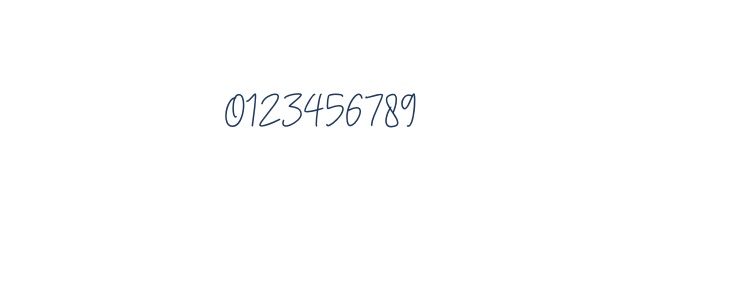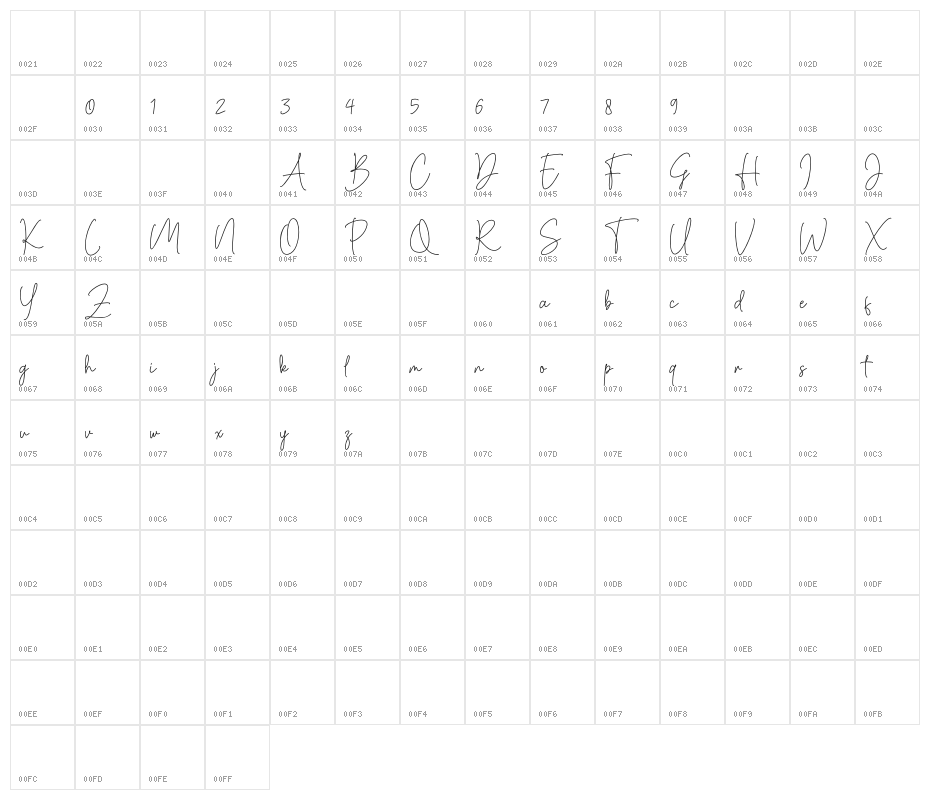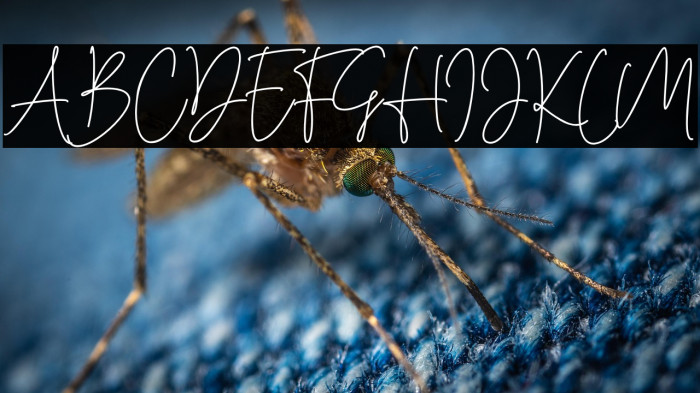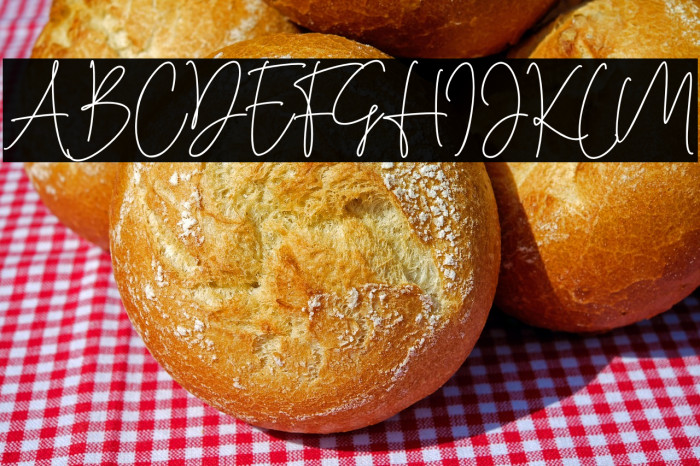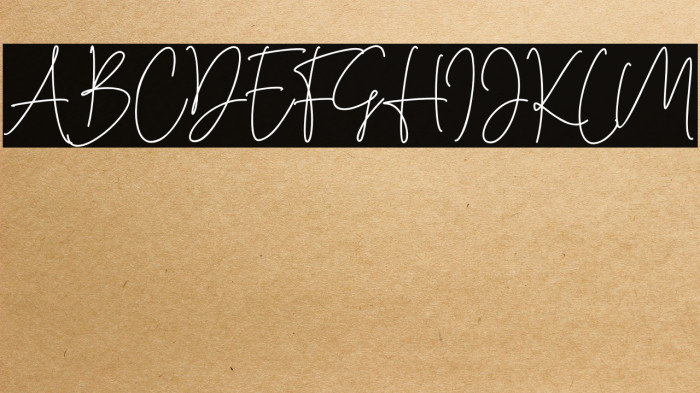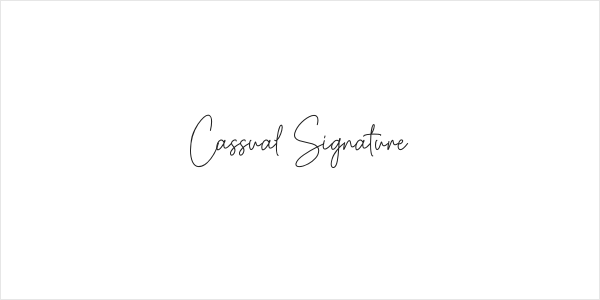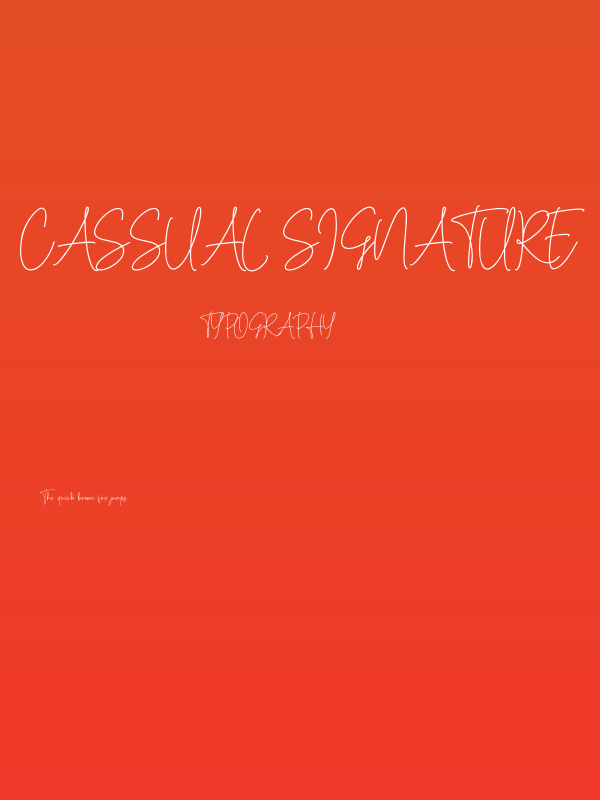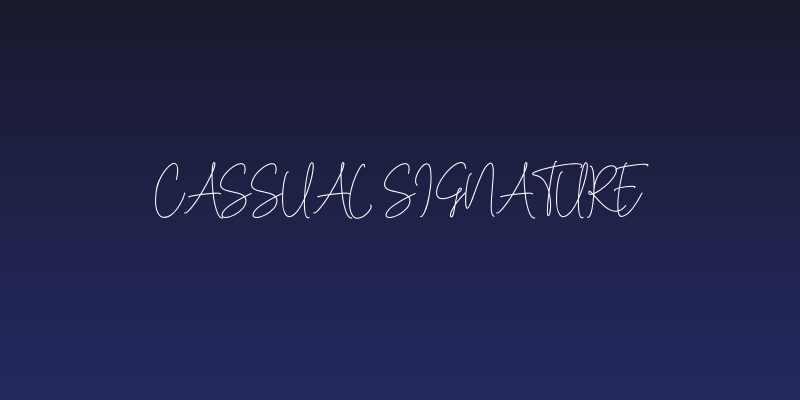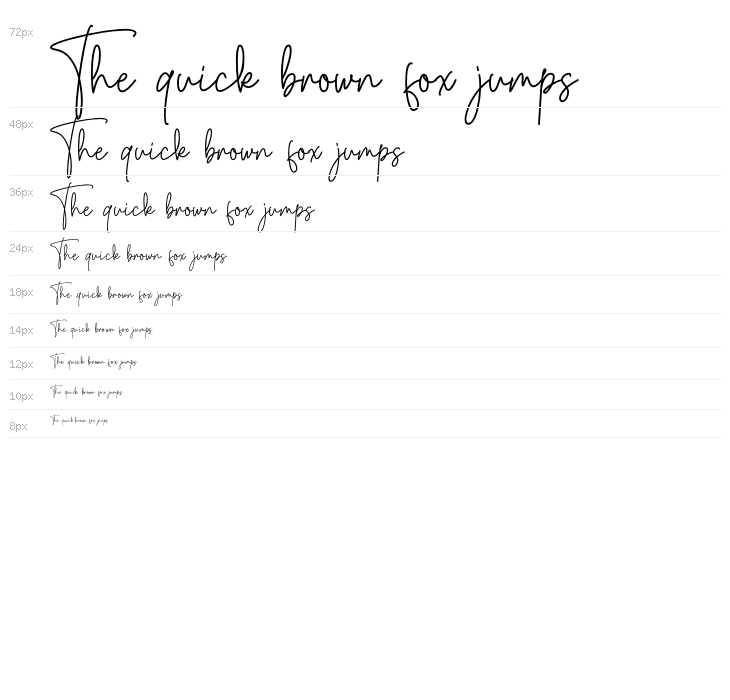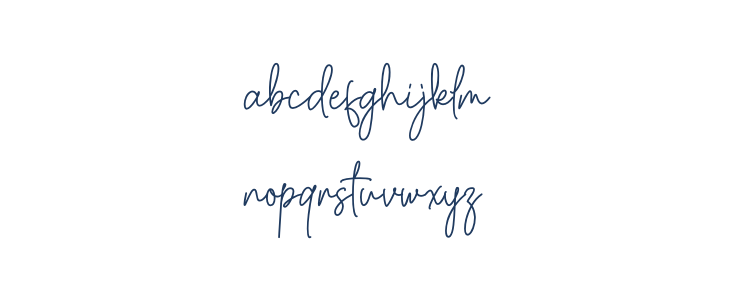
Cassual Signature Font
Cassual Signature Description
This font exudes a casual and elegant handwritten style, characterized by its flowing, cursive letterforms. The uppercase letters are tall and slender, with a slight slant that adds a dynamic feel. The lowercase letters maintain a consistent flow, enhancing the script-like appearance. The numerals are well-integrated, matching the overall aesthetic with their smooth curves. This font's delicate strokes and fluid connections make it ideal for projects that require a personal touch, such as invitations, greeting cards, or branding materials. Its artistic flair and readability ensure it stands out in both digital and print formats.
| Overall Style | Casual, Elegant |
| Use Case | Headlines, Logos, Invitations |
| Proposed Projects | Ideal for invitations, greeting cards, branding materials, and personal projects. |